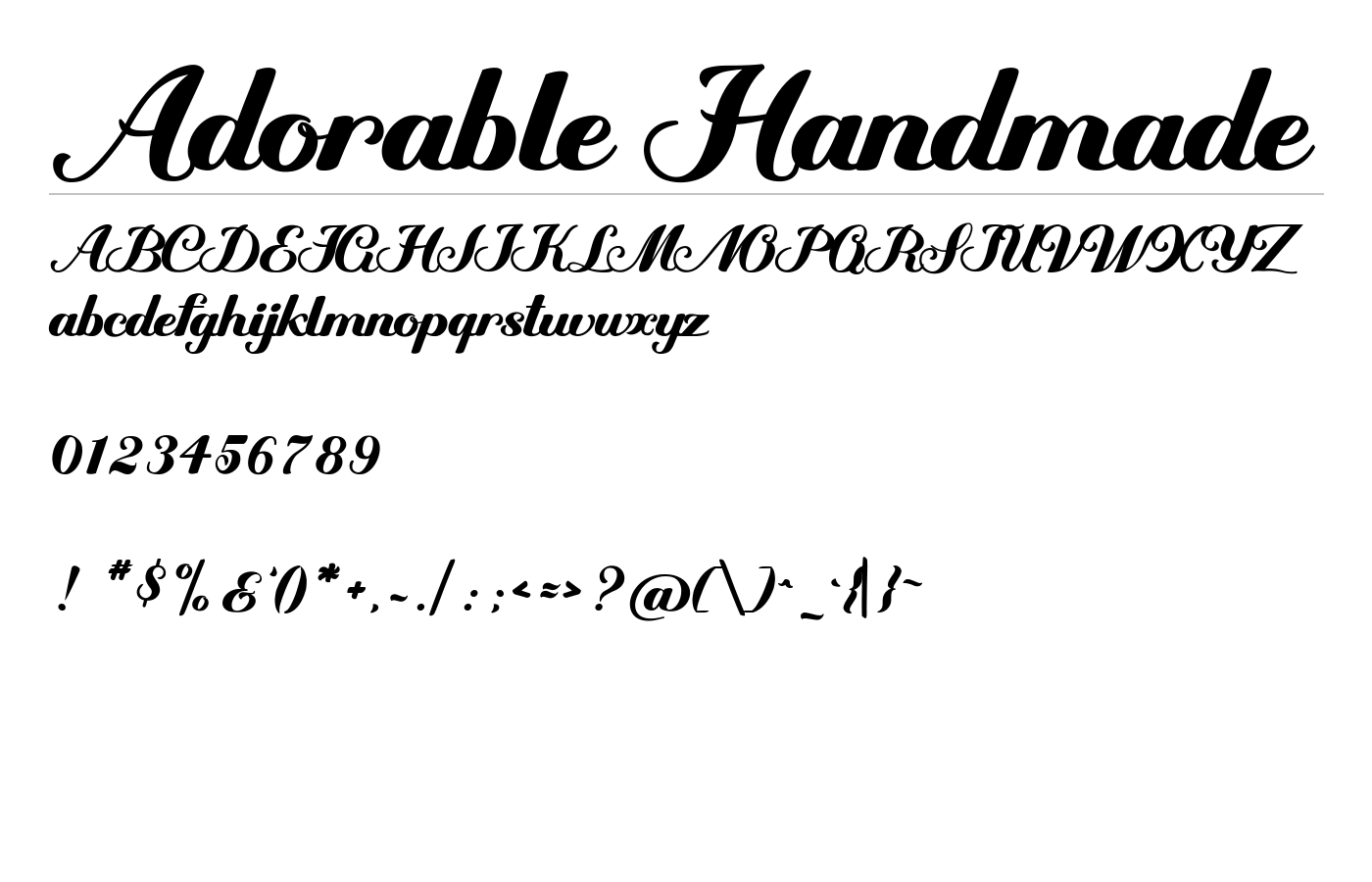
Adorable Handmade is a bold, script-style font with a smooth and flowing calligraphic feel, featuring medium contrast and elegant curves that give it a charming and personal touch. Its lively and graceful letterforms make it ideal for branding, invitations, and packaging that seek a warm, friendly, yet sophisticated look. This font shines best in headlines and logos where a handwritten, stylish character is desired.
Adorable Handmade Font
About Adorable Handmade Font
| Font family | Adorable Handmade Font |